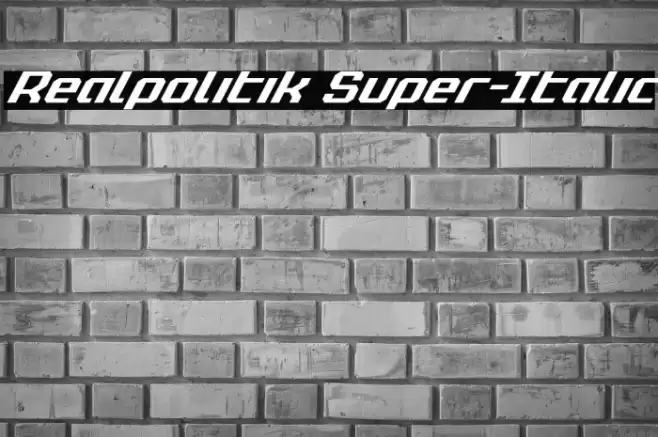
Realpolitik Super-Italic Font
Realpolitik Super-Italic Description
This font features a bold and dynamic style with a strong italic slant, giving it a sense of movement and urgency. The characters are angular and geometric, with sharp edges and a futuristic appearance. The uppercase and lowercase letters maintain a consistent style, with the lowercase slightly smaller but equally bold. Numbers and special characters follow the same design principles, ensuring uniformity across all elements. The font's distinct style makes it ideal for attention-grabbing headlines and modern design projects.
A bold, italic, and angular font with a futuristic style from Uncategorized fonts.